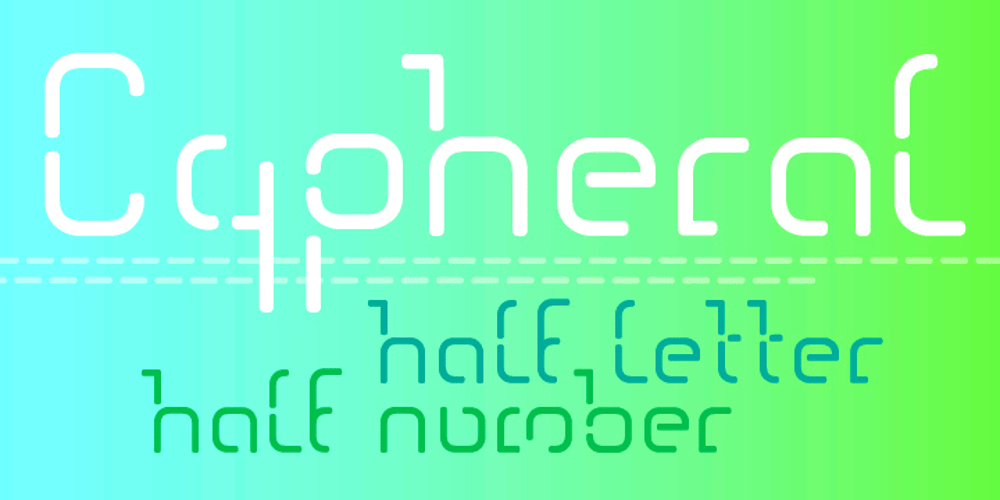
Cypheral
Cypheral font
Cypheral Font Family was designed by Rebecca Egger and published by Volcano Type. Cypheral contains 1 styles and family package options. A type between letter and number. Cypherals’ fresh typeface is a mix-up of number parts and lines that reveal to be letters. So who is to say that numbers and letters don’t have much in common?